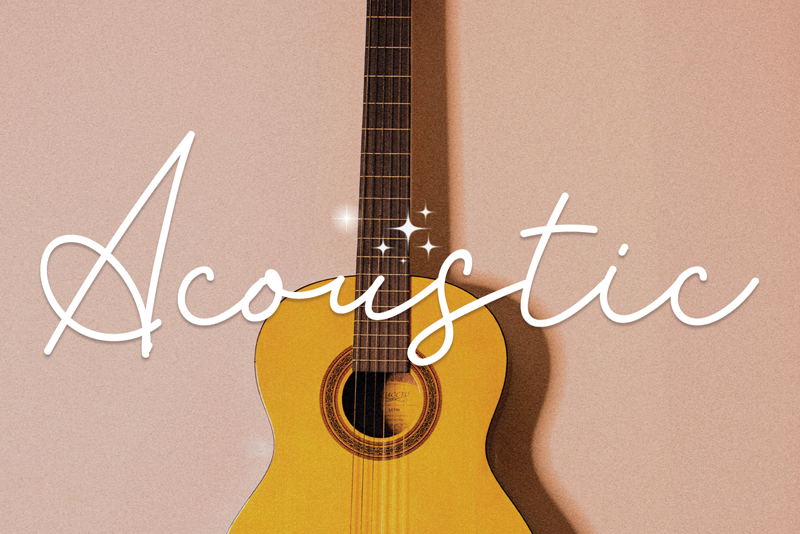
Acoustic is a romantic and sweet calligraphy script font featuring characters that seem to dance along the baseline. It will add a luxurious spark to any creative design or project! Attention : Acoustic handwriting Font is prohibited to use this font for commercial purposes or for profit without the permission of the author/admin, without being known to use this font without permission, will be subject to sanctions 5x the specified price. This font is used only for demos (Demo license) If you want to use this font for commercial use please contact email: luluksurotul123@gmail.com or click the link below: https://www.creativefabrica.com/product/acoustic-2/ref/698281/ If you want to see more other fonts, please click: https://www.creativefabrica.com/designer/behind-the-ink/ref/698281/ Any donations are very appreciated. Paypal account for donation: https://www.paypal.com/paypalme/luluk783 thanks. |